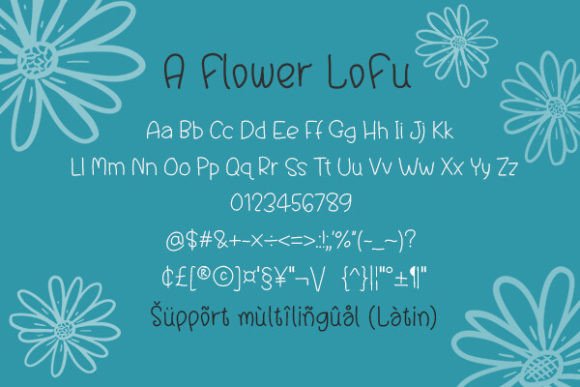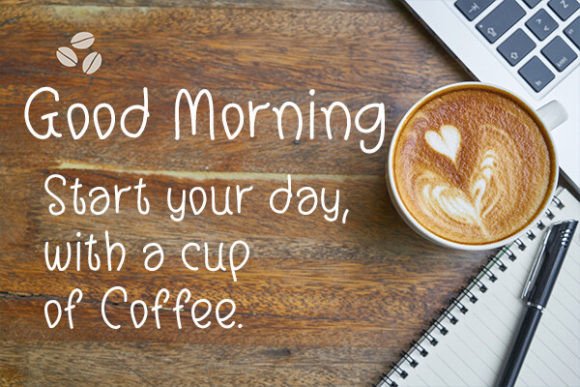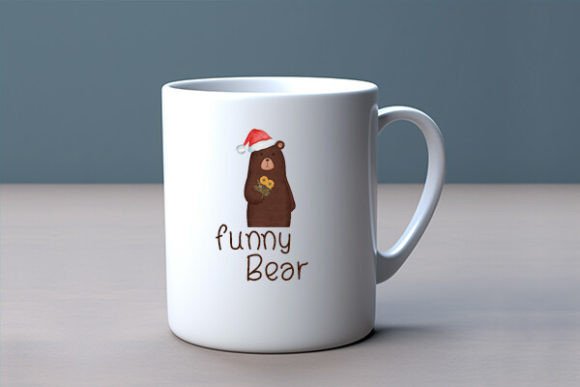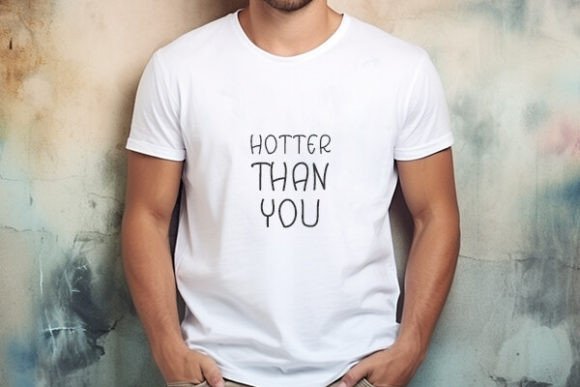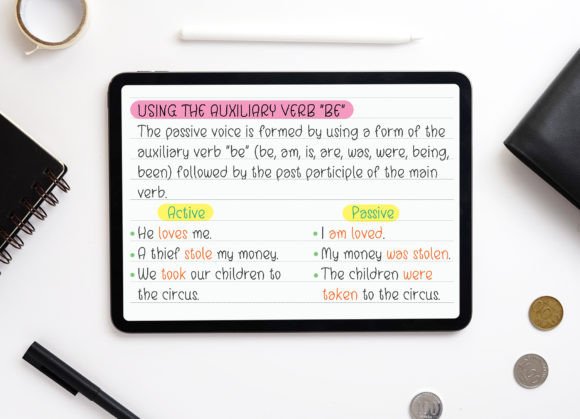
A Flower Book LoFu Font: The Perfect Addition to Your Fun and Creative Designs
Are you a designer or crafter looking for a unique and playful font to add to your creative projects? Look no further than A Flower Book LoFu Font! This adorable sans serif font is designed to bring a touch of fun and whimsy to your designs, making it perfect for a wide range of applications.
What is A Flower Book LoFu Font?
A Flower Book LoFu Font is a carefully crafted sans serif font that exudes a cute and playful vibe. Its fun and lively design makes it an excellent choice for designers and crafters who want to add a personal touch to their work. Whether you’re creating logos, posters, blogs, or children-themed designs, this font is sure to make your project stand out.
Key Features of A Flower Book LoFu Font
• Cute and Playful Design: A Flower Book LoFu Font boasts a unique and charming design that is sure to capture the attention of your audience.
• Versatile: This font is perfect for a wide range of applications, including logos, posters, blogs, children-themed designs, and more.
• Easy to Read: The sans serif design of A Flower Book LoFu Font makes it easy to read, even at small sizes.
• Fun and Whimsical: This font is designed to add a touch of fun and whimsy to your designs, making it perfect for creative projects.
Uses for A Flower Book LoFu Font
A Flower Book LoFu Font is an incredibly versatile font that can be used in a variety of creative projects. Here are some ideas to get you started:
• Logos: Add a touch of fun and personality to your logo with A Flower Book LoFu Font.
• Posters: Create eye-catching posters for events, promotions, or advertisements using this playful font.
• Blogs: Add a personal touch to your blog with A Flower Book LoFu Font, making it perfect for lifestyle, fashion, or beauty bloggers.
• Children-Themed Designs: This font is perfect for designing materials for kids, such as children’s books, educational resources, or activity sheets.
• Clothing and Accessories: Use A Flower Book LoFu Font to create fun and playful designs for t-shirts, bags, hats, and other clothing and accessories.
Why Choose A Flower Book LoFu Font?
With so many fonts available, why choose A Flower Book LoFu Font? Here are just a few reasons:
• Unique Design: A Flower Book LoFu Font boasts a unique and charming design that will set your project apart from the rest.
• Ease of Use: This font is easy to read and works well in a variety of contexts, making it a versatile addition to your design toolkit.
• Fun and Playful: A Flower Book LoFu Font is designed to add a touch of fun and whimsy to your designs, making it perfect for creative projects.
Is A Flower Book LoFu Font easy to read?
Yes, A Flower Book LoFu Font is designed to be easy to read, even at small sizes.